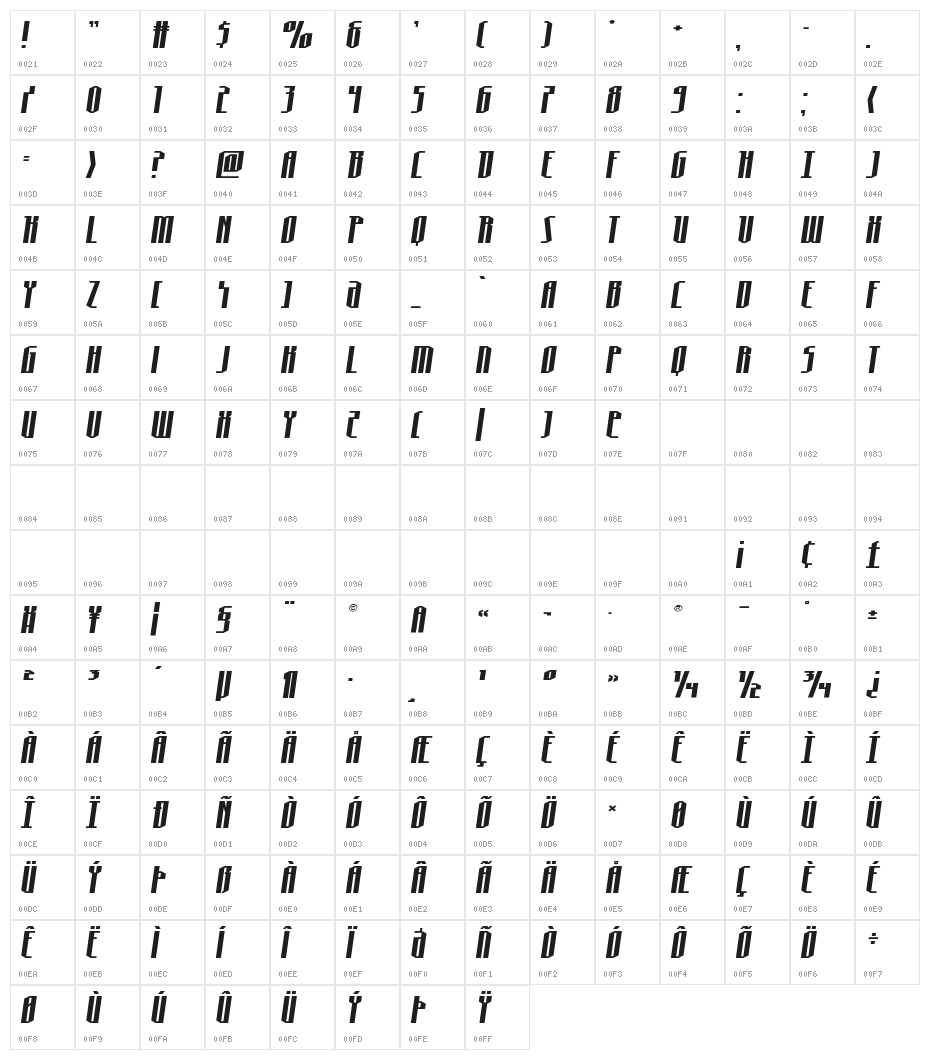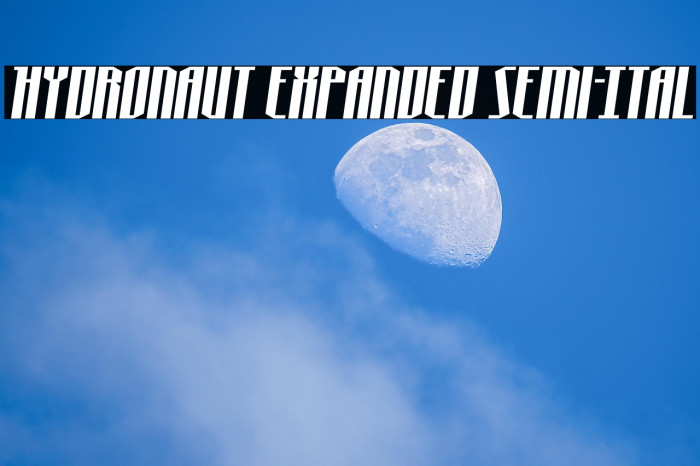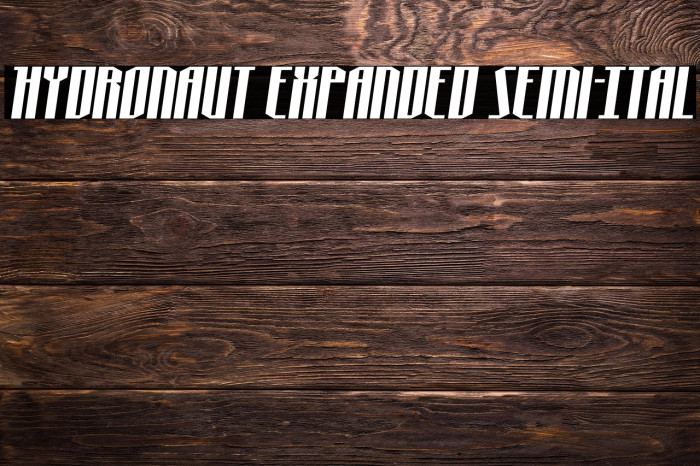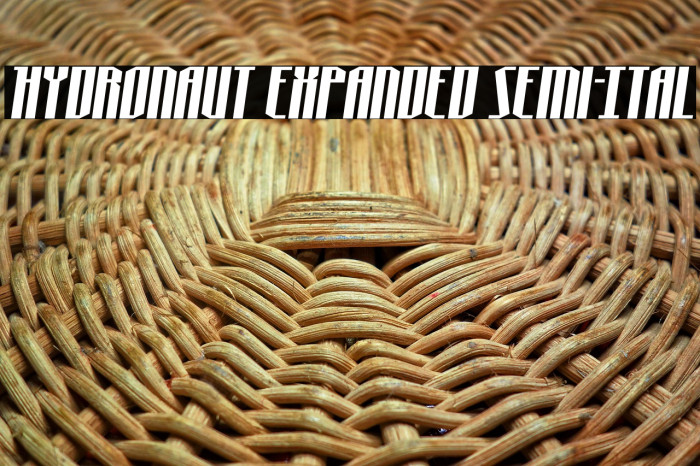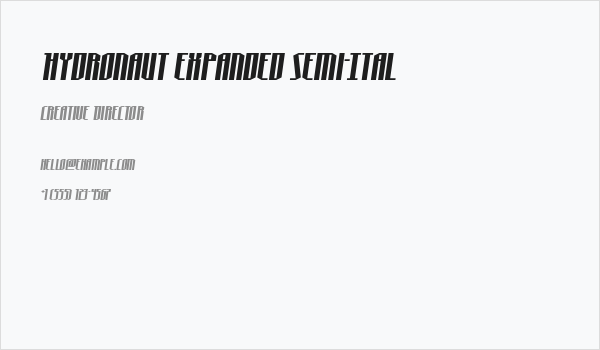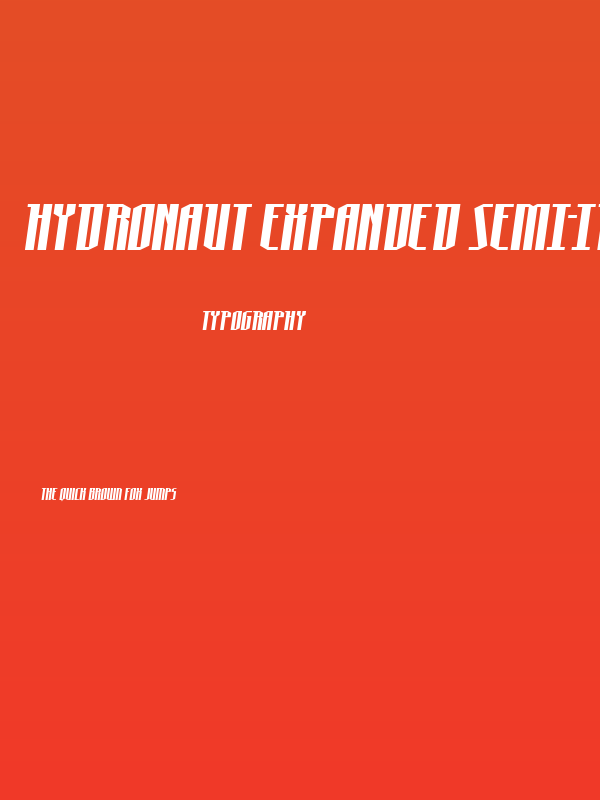
Hydronaut Expanded Semi-Ital Font
Hydronaut Expanded Semi-Ital Description
This font features a bold, angular design with a futuristic and dynamic appearance. The characters are elongated and slightly italicized, giving them a sense of motion and energy. The strokes are thick and consistent, providing a strong visual impact. The expanded width of the letters enhances readability while maintaining a unique style. The font includes both uppercase and lowercase letters, numerals, and a variety of special characters, making it versatile for various design needs. Its geometric structure and sharp edges make it suitable for modern and tech-oriented projects.
| Proposed Projects | Ideal for tech branding, sports team logos, video game titles, and futuristic posters. |